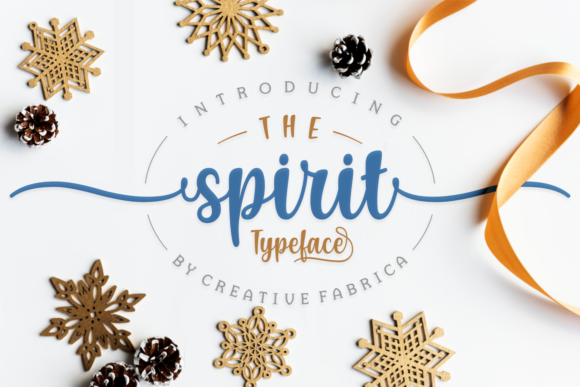
Dive into the world of brand expression with The Spirit Font, a captivating brush-lettered script that exudes playfulness and charm. Strokes dance and twirl across the page, leaving a trail of elegance and whimsy. With its exuberant personality and stylish swashes, this font is the perfect choice for adding a touch of festive fun to your designs.
Imagine your logo, bursting with life and character, standing out from the crowd like a vibrant carnival. The Spirit Font is the perfect tool to infuse your brand with an infectious energy that draws attention and captivates hearts. Its expressive nature lends itself effortlessly to creating designs that resonate with your audience, evoking emotions and leaving a lasting impression.
Step into a world where creativity flourishes and let The Spirit Font guide you on an artistic adventure. Craft stunning social media posts that pop off the screen, leaving your followers in awe. Design eye-catching posters and flyers that demand attention, spreading your message far and wide. Unleash your imagination and create unique invitations and greeting cards that warm the hearts of your loved ones.
With The Spirit Font as your creative companion, the possibilities are boundless. Whether you're a seasoned designer or a passionate enthusiast, this font is your gateway to expressing yourself in a way that resonates with the world. Let your designs dance off the page with a touch of whimsy and boundless joy.
So embrace the magic of The Spirit Font and embark on a creative odyssey that will leave you feeling inspired, fulfilled, and ready to conquer the world. Its spirited nature will ignite your imagination and unlock a world of possibilities, transforming your designs into captivating works of art.